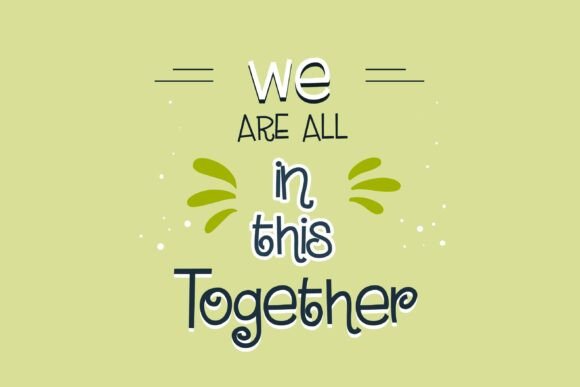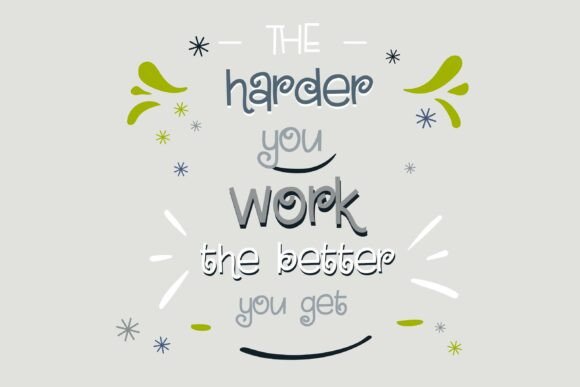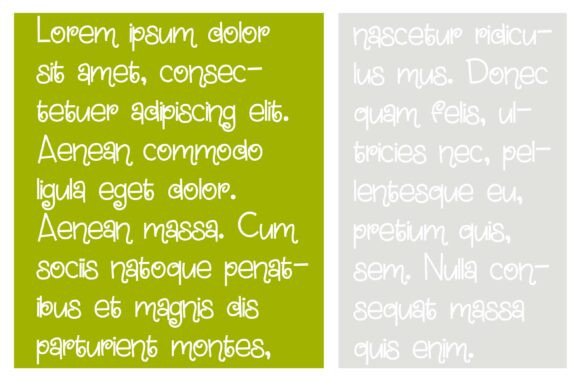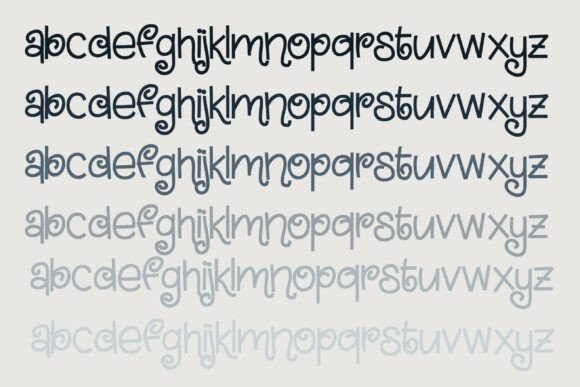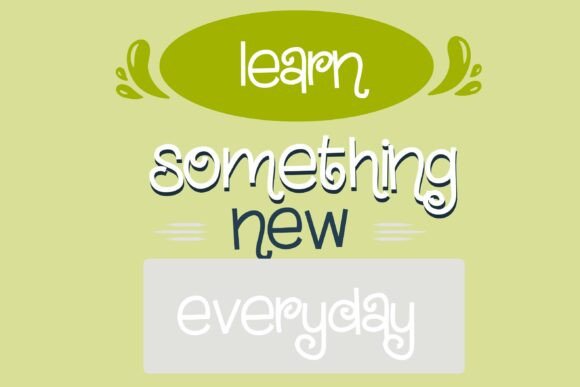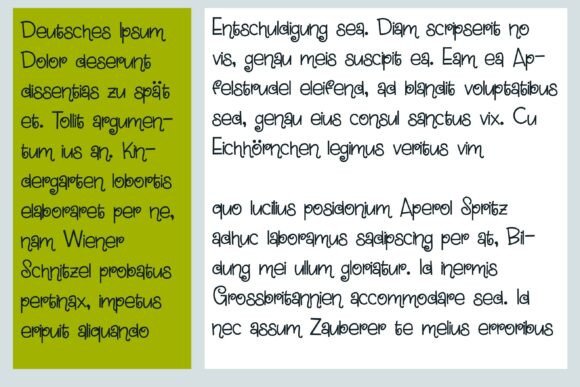
Gracias Font: Elevate Your Design with a Breezy and Bright Style
Are you looking for a font that can add a touch of playfulness and personality to your design? Look no further than Gracias Font, a lively display sans that captures the essence of a breezy and bright soul. With its unique blend of bouncy, hand-drawn letterforms and rhythmic, sweeping curls, Gracias is the perfect choice for designers and crafters who want to add a dash of style to their projects.
The Unique Characteristics of Gracias Font
Gracias Font features a distinctive design that sets it apart from other fonts. Its hand-drawn letterforms are characterized by rhythmic, sweeping curls that give the font a sense of movement and energy. The organic structural weight of the font bridges the gap between casual kitchen-table sketches and modern culinary branding, making it an ideal choice for a wide range of design applications.
One of the key features that makes Gracias Font so appealing is its friendly personality. The font’s fluid curves and bouncy letterforms give it a lively and approachable feel that’s perfect for designs that need to connect with their audience on a personal level. Whether you’re creating a logo for an independent taco shop, a label for a boutique hot sauce, or a festive menu design, Gracias Font is the perfect choice.
Perfect for Culinary Branding and More
Gracias Font is specifically designed with culinary branding in mind, making it an ideal choice for restaurants, food trucks, and specialty food stores. The font’s playful and lively personality is well-suited to the vibrant and dynamic world of food and drink, and its unique design ensures that it will stand out in a crowded marketplace.
But Gracias Font is not just limited to culinary branding. Its versatility and wide range of applications make it a great choice for a variety of design projects, including:
- Independent taco shop identities
- Boutique hot sauce labels
- Festive menu designs
- High-impact social media headers
- Any design project that needs a touch of personality and style
Why Choose Gracias Font?
So why should you choose Gracias Font for your design project? Here are just a few reasons:
- Unique and eye-catching design: Gracias Font features a distinctive design that’s sure to grab attention and set your project apart from the crowd.
- Playful and lively personality: The font’s friendly and approachable personality makes it perfect for designs that need to connect with their audience on a personal level.
- Versatile and wide range of applications: Gracias Font is suitable for a wide range of design projects, from culinary branding to social media headers and more.
- Easy to use and customize: Gracias Font is easy to use and customize, making it a great choice for designers and crafters of all levels.
Tips for Using Gracias Font
Here are a few tips for using Gracias Font in your design project:
- Use it as a headline font: Gracias Font is perfect for headlines and titles, where its bold and playful personality can really shine.
- Pair it with a complementary font: Gracias Font pairs well with a range of fonts, so don’t be afraid to experiment and find the perfect combination for your project.
- Experiment with different colors and textures: Gracias Font looks great in a range of colors and textures, so don’t be afraid to get creative and try out different options.
In conclusion, Gracias Font is a unique and versatile font that’s perfect for designers and crafters who want to add a touch of personality and style to their projects. With its playful and lively personality, distinctive design, and wide range of applications, Gracias Font is an ideal choice for a wide range of design projects. So why not give it a try and see the difference it can make?